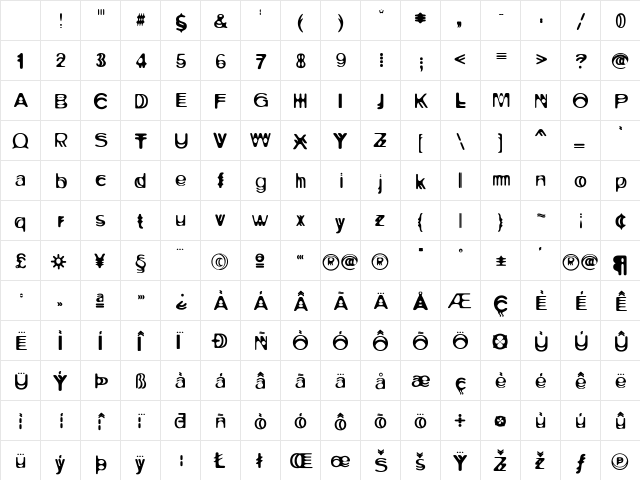
Complete Ritual Regular glyph index. Displaying only characters natively supported by Ritual Regular font.
Ritual is a composed and adaptable typeface that performs quietly and consistently across a wide range of design contexts.
Who designed the Ritual Regular font?
This font was published by Copr. Neville Brody, . Published by FontShop International. FUSE release. Check the technical specs section for copyright and designer details.